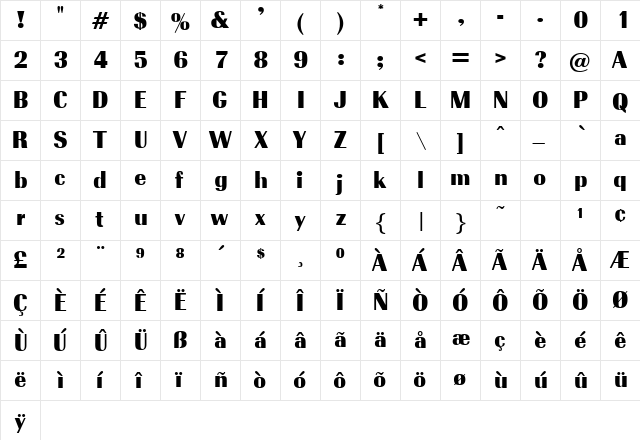
Raffia Regular
Design Context for Raffia Typeface
Raffia offers clean, dependable letterforms without strong stylistic allegiance, making it a practical choice for designers who need flexibility.